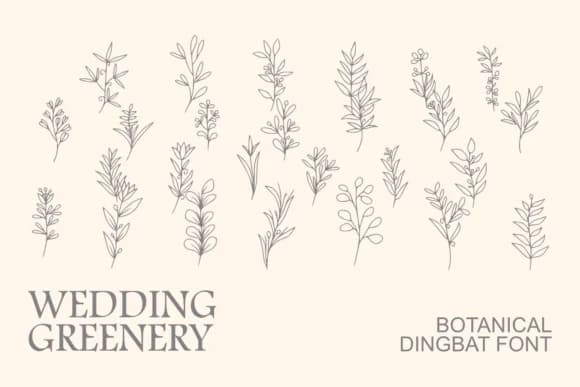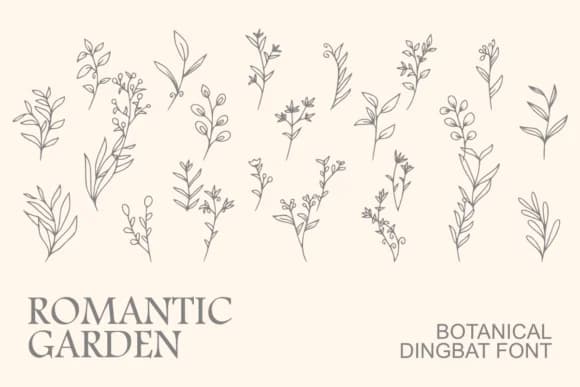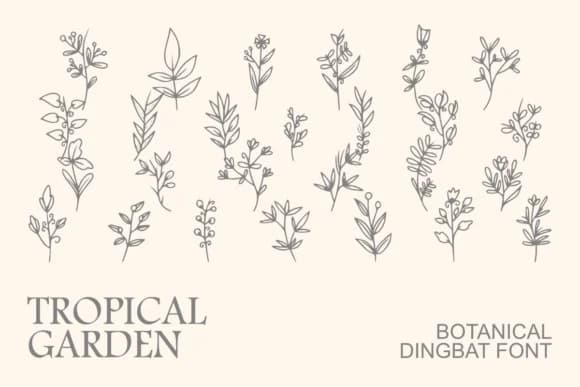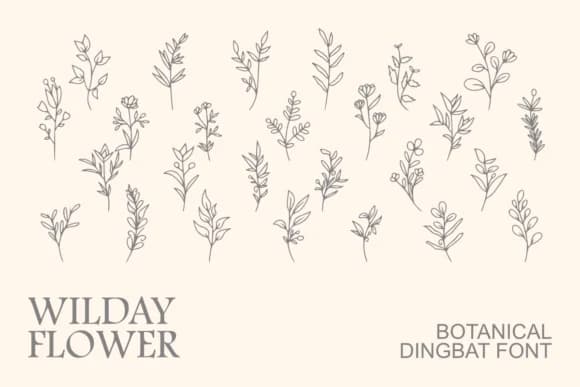
1 / 5About Drawing Plant Font
Hand-drawn botanical dingbats have a warmth that digital vectors struggle to capture, and Drawing Plant from Intype Studio nails this quality. The font's character set brims with organic leaf shapes, delicate branch illustrations, and wildflower sketches rendered in a loose, sketch-like style that feels genuinely rendered by hand. This authentic touch sets it apart from geometric digital assets and resonates with designers who want their work to read as genuine rather than templated.
You'll find it valuable for seasonal craft stickers, botanical tumbler wraps, and wildflower-themed packaging labels where hand-rendered texture makes a real difference. Small-batch product creators use it for nature-inspired branding that feels personal rather than corporate. Built in SVG and OTF formats, it cuts clean on Cricut machines and laser cutters, giving you flexibility across print and digital workflows. Layer the leaf forms over solid backgrounds, combine multiple plant elements into composite illustrations, or use individual stems as subtle dividers within larger designs.
It serves anyone building garden-focused brand systems, creating small-run craft products, or designing botanical illustrations that need visual warmth and character. Find it on Creative Fabrica and add those hand-drawn plants to your next project.
Drawing Plant Font is a versatile dingbats font that works for both headings and body text. Pair it with a contrasting sans-serif or serif font to add visual interest and a clear distinction between titles and body copy.
Drawing Plant Font